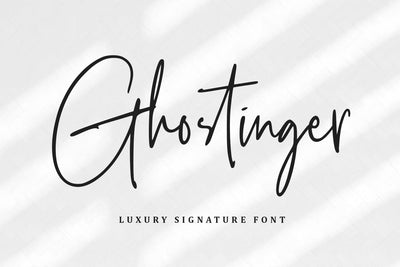
Ghostinger
introducing
GHOSTINGER
- luxury signature font -
GHOSTINGER is a natural signature font.
It is great for branding, packaging, quotes, logos, t-shirt designs, tote bag designs, cards, banners, social media, and more.